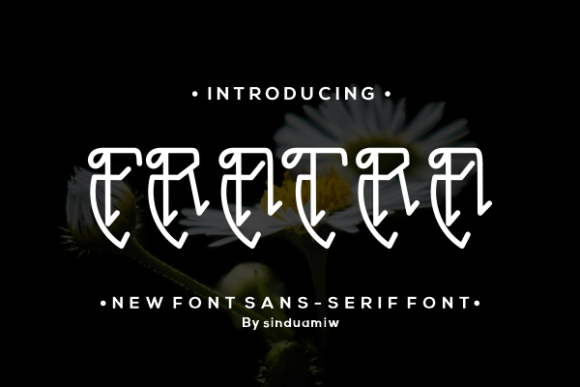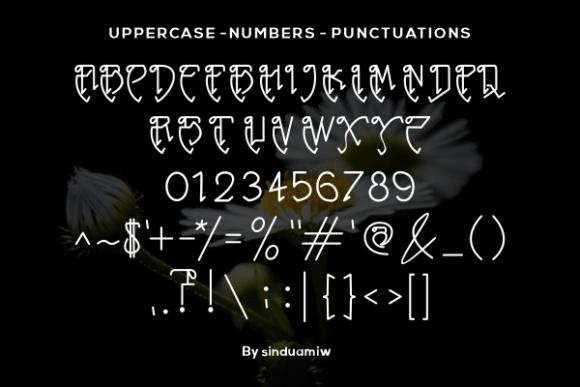
Have you ever found yourself stuck in a design rut, searching for that perfect font to elevate your project? For many designers, it’s a moment of frustration, followed by a burst of creativity as they stumble upon the ideal typography. This is exactly what happened when we discovered the Fratra Font – a powerful, cool, and modern blackletter font that’s sure to make your designs stand out.
| 👤 Author | sinduamiw |
Perfect for alcoholic beverage labels, food packaging, and exquisite branding projects, the Fratra Font is more than just a stylish addition to your design arsenal. It’s a valuable tool that can help you create a lasting impression on your audience. With its unique blend of modernity and sophistication, this font is a game-changer for designers looking to add some flair to their work.
Fatra Font Key Features
- Unique Characteristics: Fatra Font features a distinctive, elegant design with a mix of modern and traditional elements, making it suitable for a wide range of applications.
Fatra Font Review
As a designer, I’ve had the chance to work with the Fratra Font, and I must say it’s a unique addition to any design project. ✨ One of the standout features is its quirky and playful feel, making it perfect for creative and artistic projects. The font is highly legible, even at smaller sizes, and its irregularities add a touch of personality to any text.
One of the things that works well is its adaptability. ✨ It comes in a range of weights, from light to bold, allowing you to adjust the font to suit your design needs. The font also works well in both digital and print formats, making it a versatile choice for designers.
- ⚠️ Limited character set: The Fratra Font has a limited character set, which may not be suitable for projects that require a wide range of characters, such as languages with non-Latin scripts.
- ⚠️ Not ideal for body text: While the font is highly legible, it’s not ideal for large blocks of body text due to its quirky feel, which can be tiring to read.
Overall, I think the Fratra Font is a great choice for designers who want to add a touch of personality to their projects. While it may have some limitations, its unique feel and adaptability make it a valuable addition to any design library.
Tips for Getting the Most Out of Fratra Font
For best results, use Fratra Font in conjunction with other elegant and modern design elements. Experiment with different font sizes, colors, and combinations to create unique and eye-catching designs.
Fatra Font is ideal for use in:
- Corporate branding and marketing materials
- Event and conference signage
Alternatives to Fratra Font for Designers